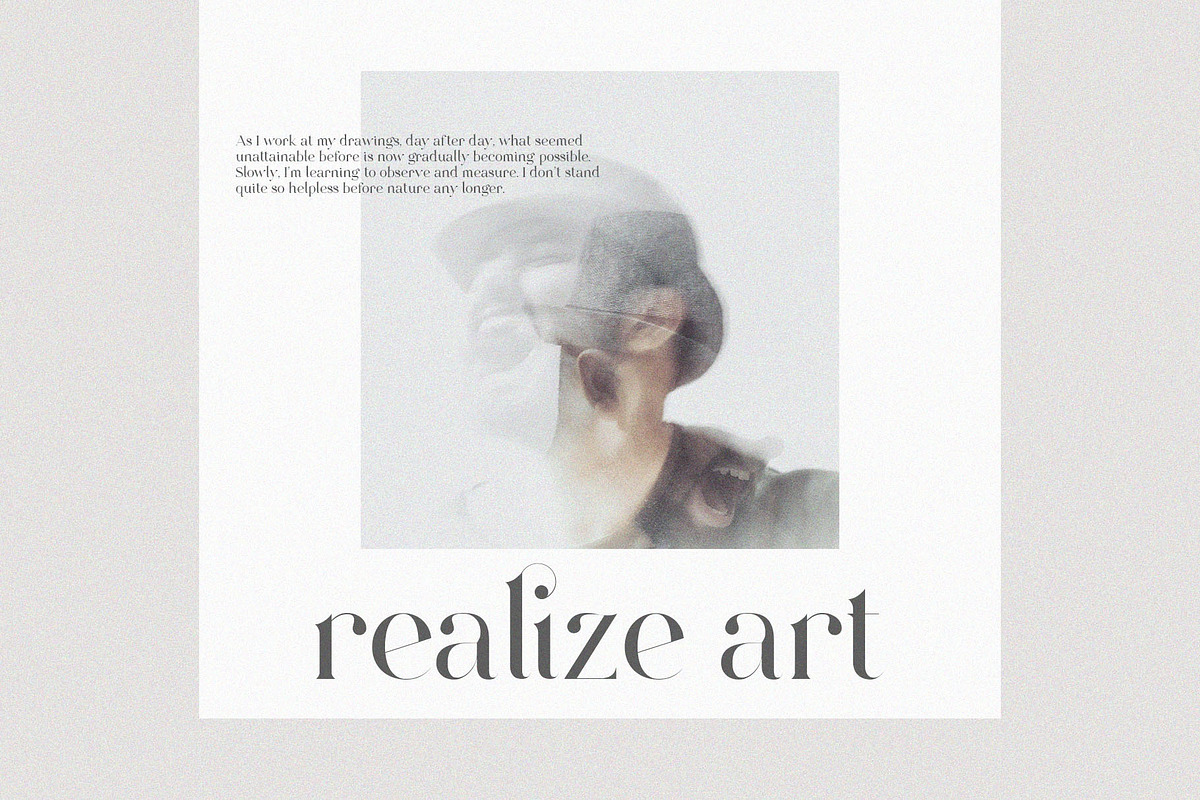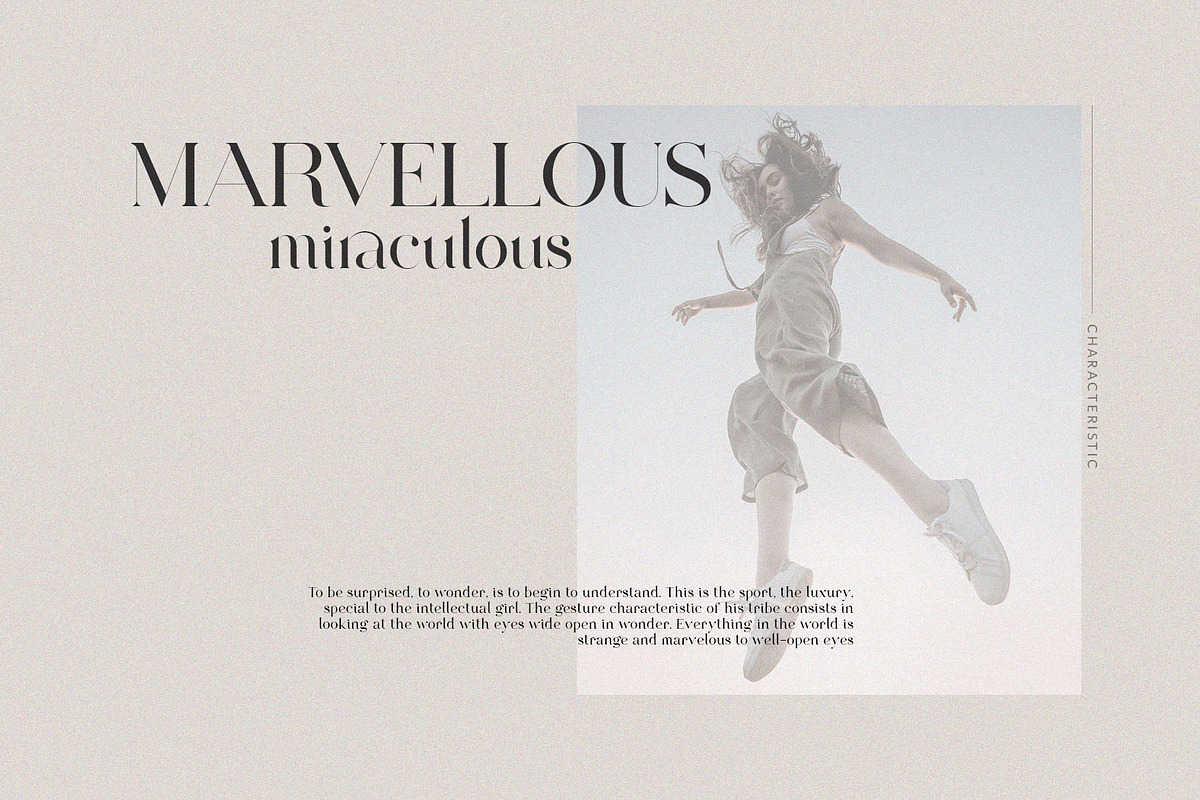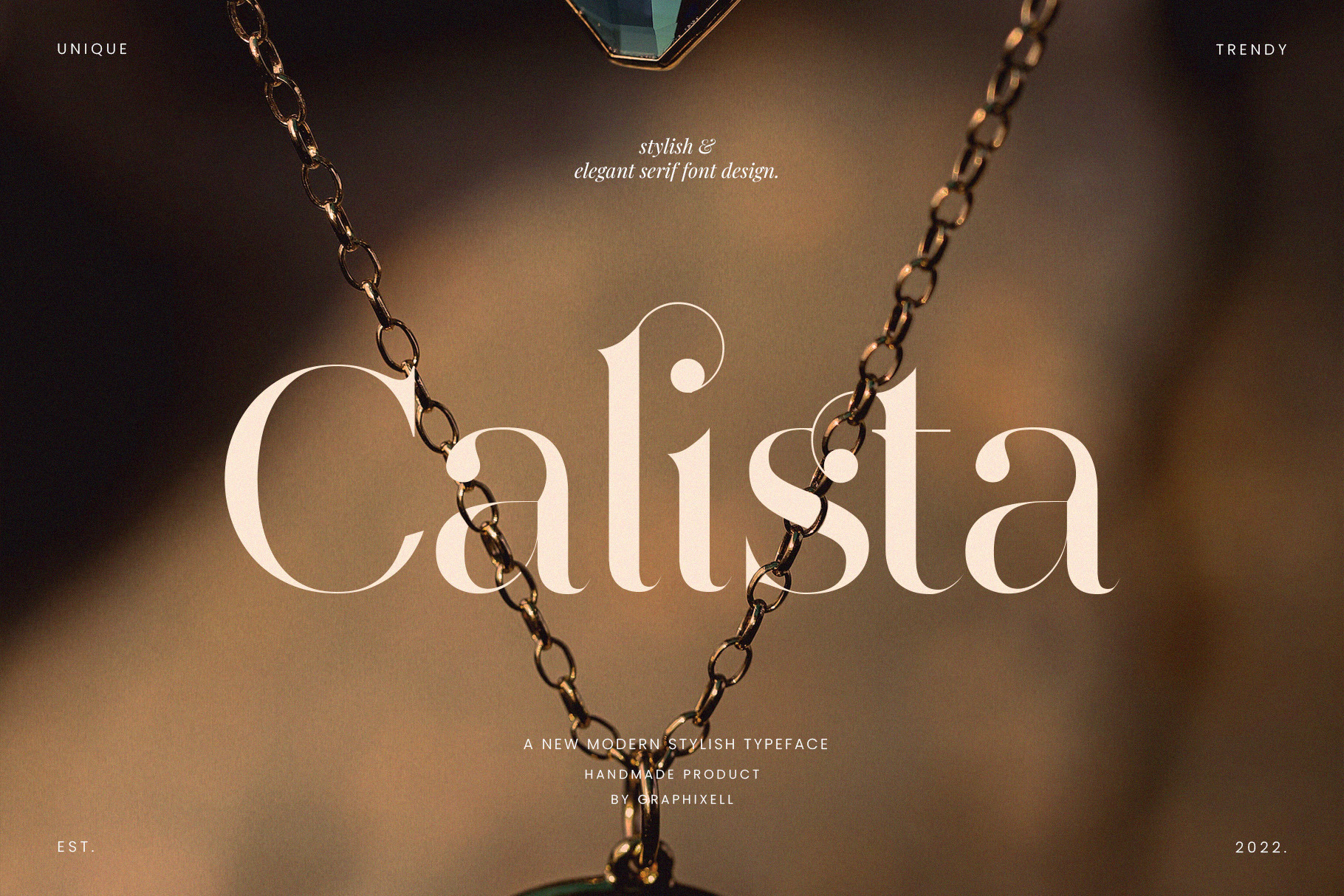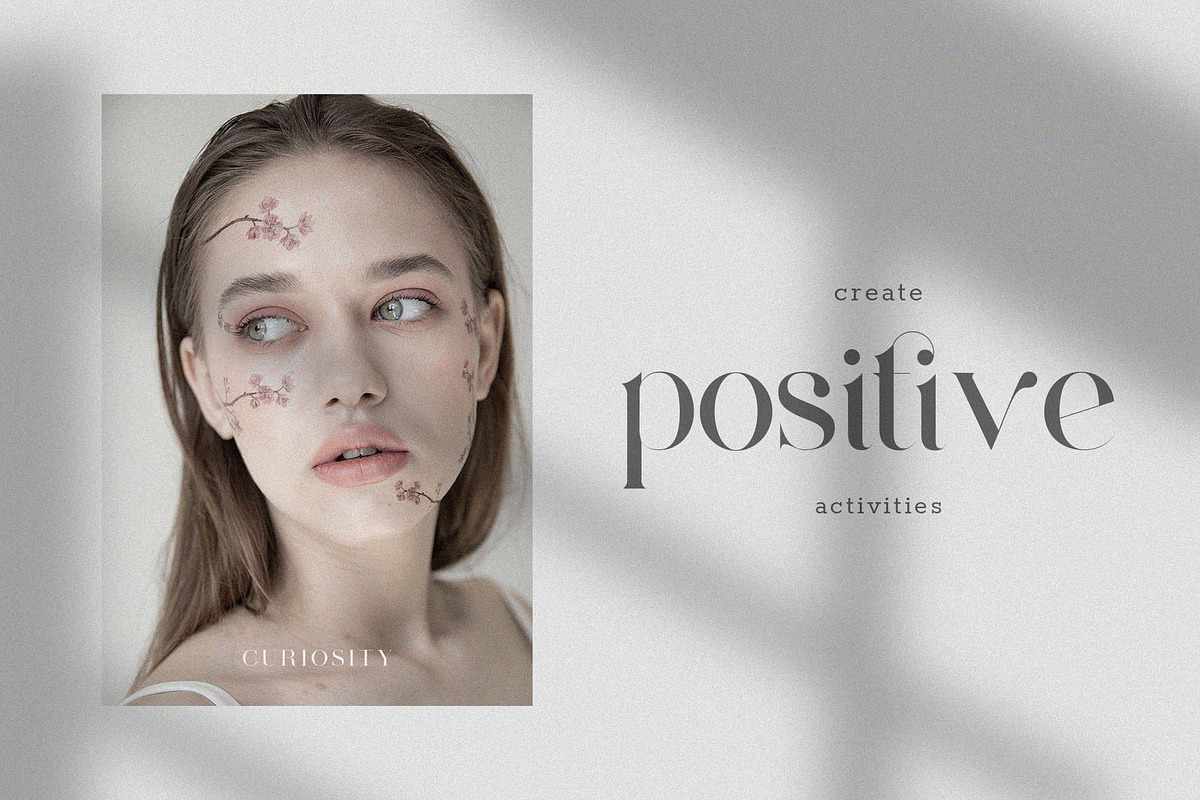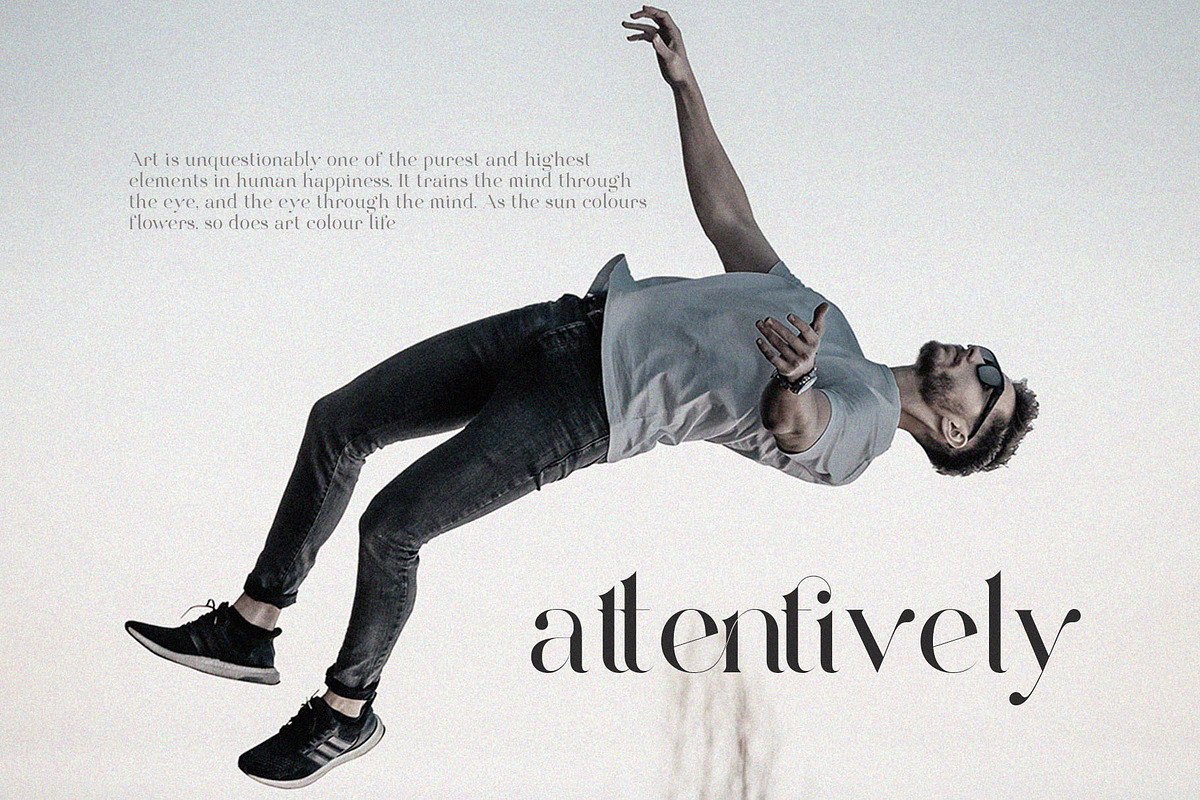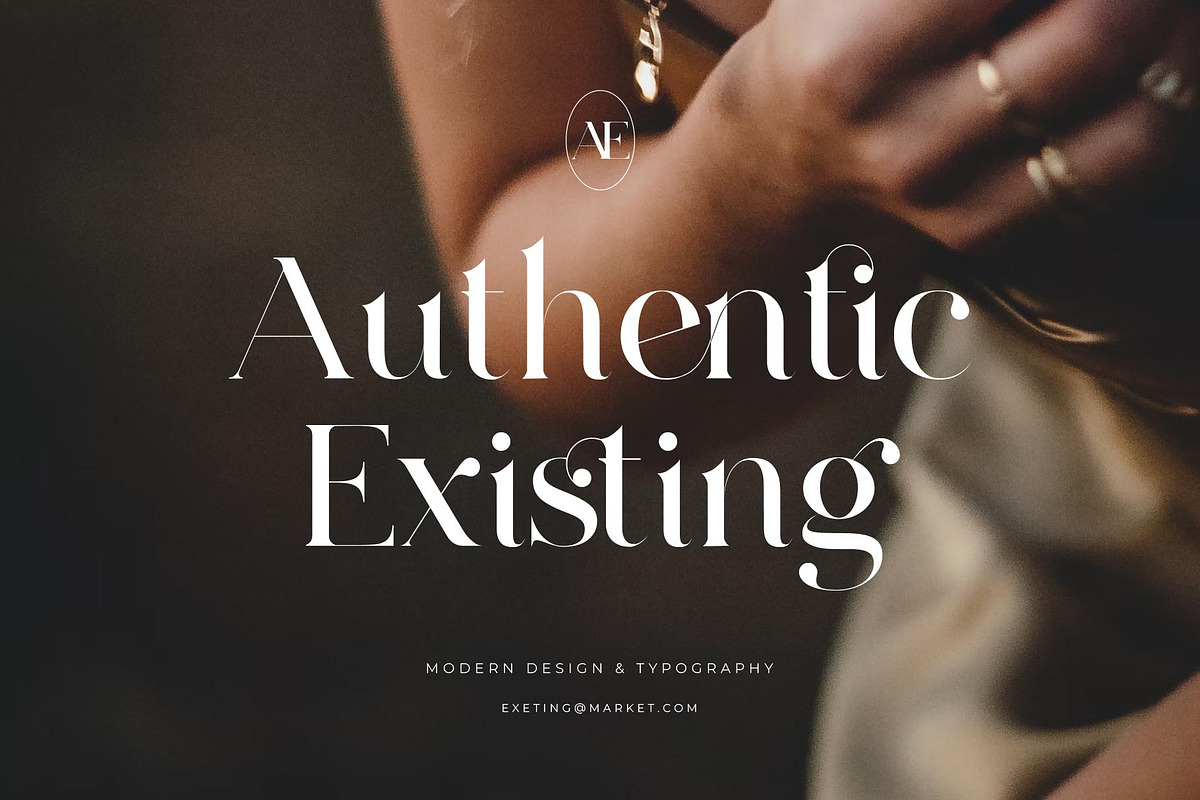
Calista Ligature Serif Typeface
Calista Serif Font inspired by the famous minimalist logo perfect for the purposes of designing templates, brochures, videos, advertising branding, logos, invitation, layout design, elegant crafting, instagram template, fashion, film cover beauty design and more.